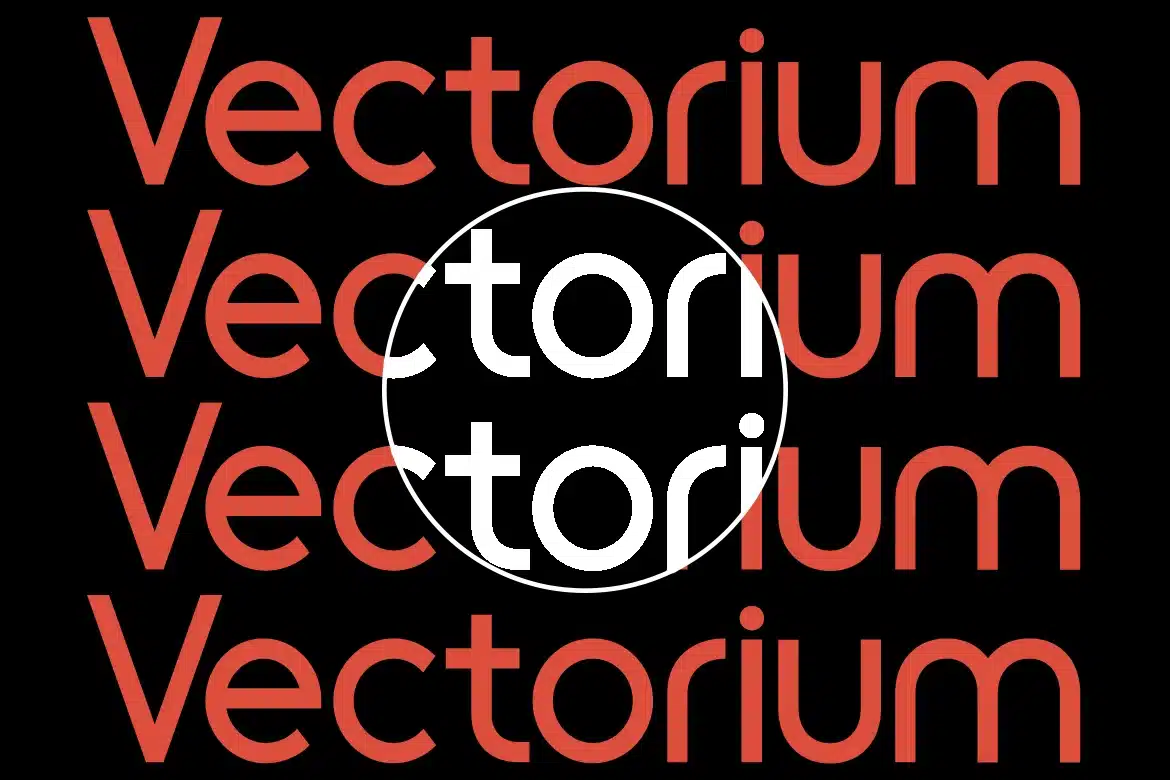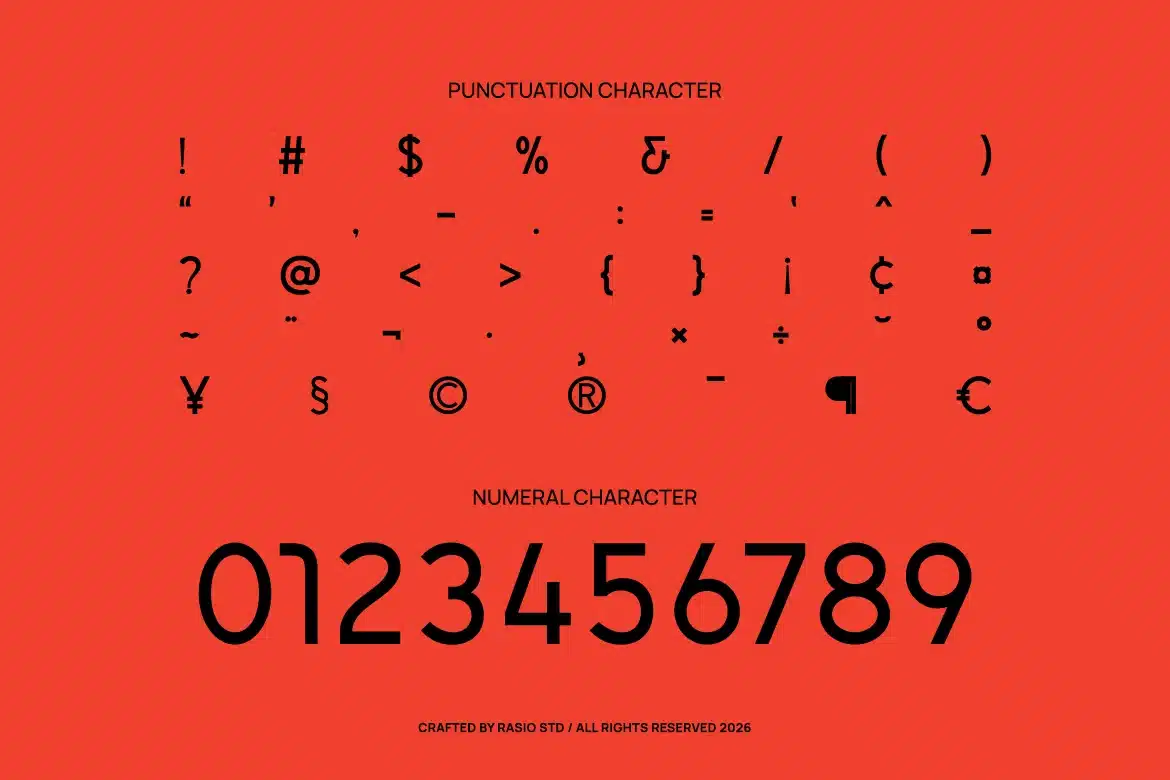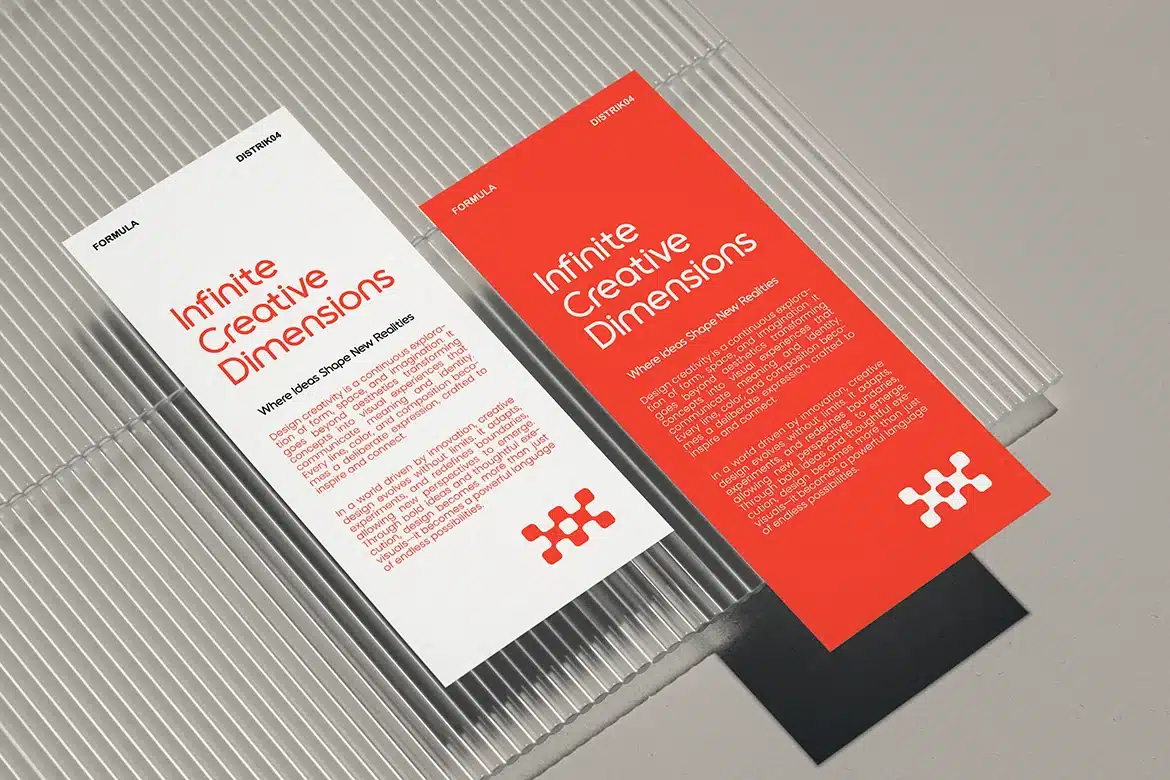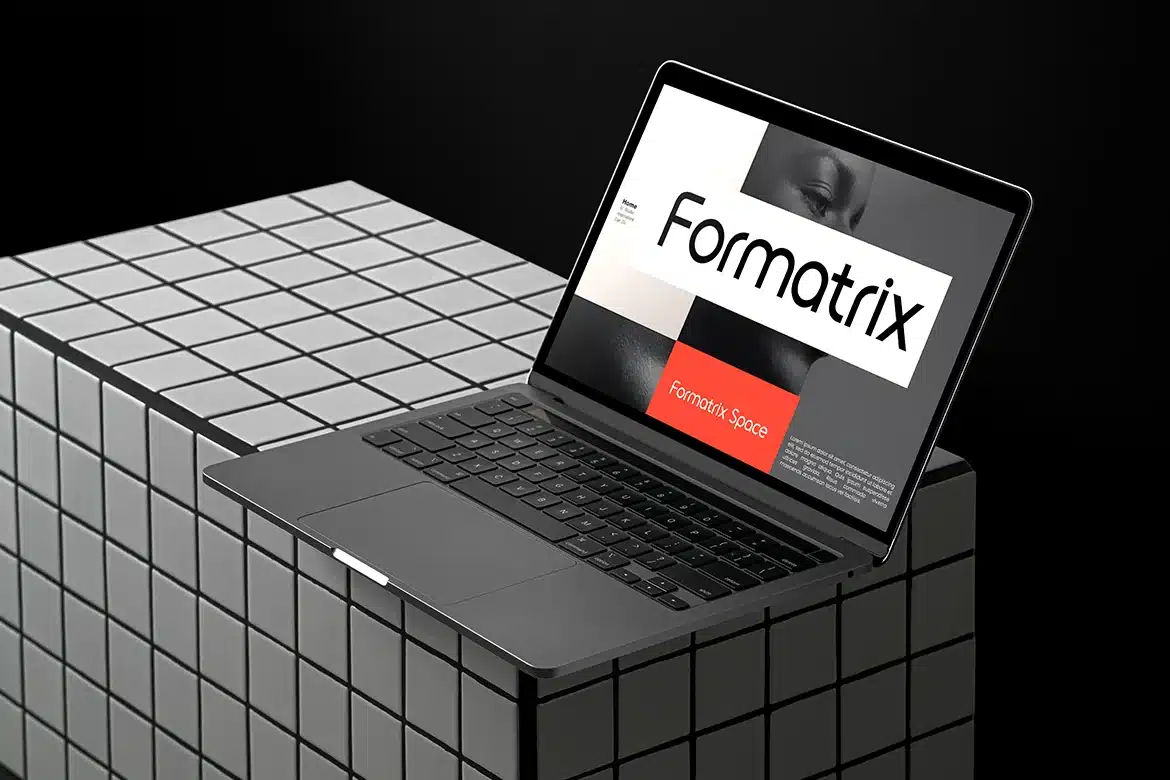
Cenura Modern Geometric Sans Serif Font
Cenura is a modern geometric sans serif typeface featuring clean lines, balanced proportions, and a minimalist visual structure. The font includes complete uppercase and lowercase characters, numerals, and a wide range of punctuation, ensuring versatility across various design needs. Built with a strong geometric foundation, it delivers clarity and precision for both digital and print applications.
Relevance and Use Cases is perfect for modern design projects that prioritize clarity, structure, and professionalism, such as corporate branding, tech startups, UI/UX design, presentations, and editorial layouts. Its geometric and minimalist style ensures strong readability and a clean visual identity across both digital and print media.